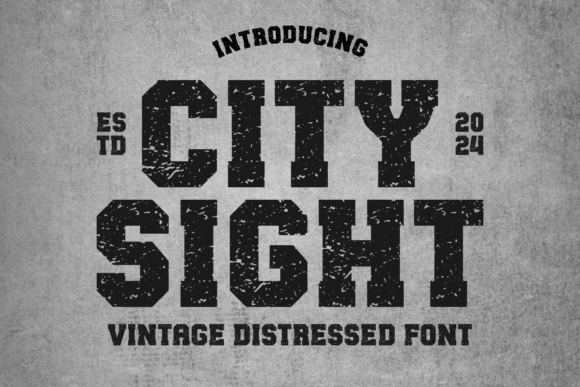
Uncovering the Hidden Gems of City Life: Introducing City Sight Font
As a designer, there’s nothing quite like the thrill of stumbling upon a font that perfectly captures the essence of a project. For me, that moment came when I discovered the City Sight Font – a vintage-inspired typeface that instantly transports me to the bustling streets of a bygone era.
City Sight Font is more than just a font – it’s a time capsule that distills the energy and character of city life into a unique visual language. Its worn, distressed look is perfect for projects that aim to evoke a sense of history, nostalgia, or urban charm. Whether you’re designing a retro-themed website, a travel brochure, or a marketing campaign, City Sight Font is an invaluable asset that can add depth and personality to your work.
Key Features of City Sight Font
- Unique Characteristics: City Sight Font features a unique blend of modern and urban elements, with geometric shapes and abstract forms that evoke a sense of cityscape and metropolitan life.
- Stylistic Sets: City Sight Font offers multiple stylistic sets, allowing designers to switch between different font styles and moods, from bold and edgy to sleek and modern.
Designer Review: City Sight Font
Overall, I think City Sight Font is a unique and interesting choice for typography enthusiasts. ✨ The font’s mix of modern and vintage elements gives it a distinctive feel that could work well for certain projects.
Here are some things that stand out to me:
- ✨ The font’s variable line spacing creates a sense of depth and visual interest.
- ✨ The bold weights are particularly striking, and could be used effectively for headlines or titles.
- ✨ The font’s subtle texture adds a tactile element that could enhance the user experience.
However, there are a few limitations that might make me think twice:
- ⚠️ The font’s readability can suffer at smaller sizes, particularly in text-heavy blocks.
- ⚠️ The font’s quirky feel might not be to everyone’s taste, and could be jarring in certain contexts.
Overall, I think City Sight Font is a solid choice for designers looking to add some personality to their work. While it may not be perfect, it’s certainly worth considering for the right project.
Use City Sight Font for titles, headings, and emphasis in your designs. Experiment with different font sizes and colors to create visual hierarchy and balance. Consider pairing City Sight Font with other fonts for a unique look.
City Sight Font is ideal for:
- Travel and tourism marketing materials
- Urban and city-themed designs
- Adventure and outdoor-related projects
Alternatives to City Sight Font
Open Sans is a modern sans-serif font that is highly legible and versatile. It is suitable for both body text and headings. When to use: body text, headings, and titles. Comparison: Open Sans is more legible and has a cleaner design compared to City Sight Font, which has a more decorative feel.
Montserrat is a sans-serif font that is designed for urban environments. It is highly legible and has a geometric feel. When to use: body text, headings, and titles in urban-themed designs. Comparison: Montserrat has a more geometric and modern feel compared to City Sight Font, which has a more traditional feel.
Lato is a sans-serif font that is highly legible and has a clean design. It is suitable for both body text and headings. When to use: body text, headings, and titles in modern and minimalist designs. Comparison: Lato is more minimalist and has a cleaner design compared to City Sight Font, which has a more decorative feel.